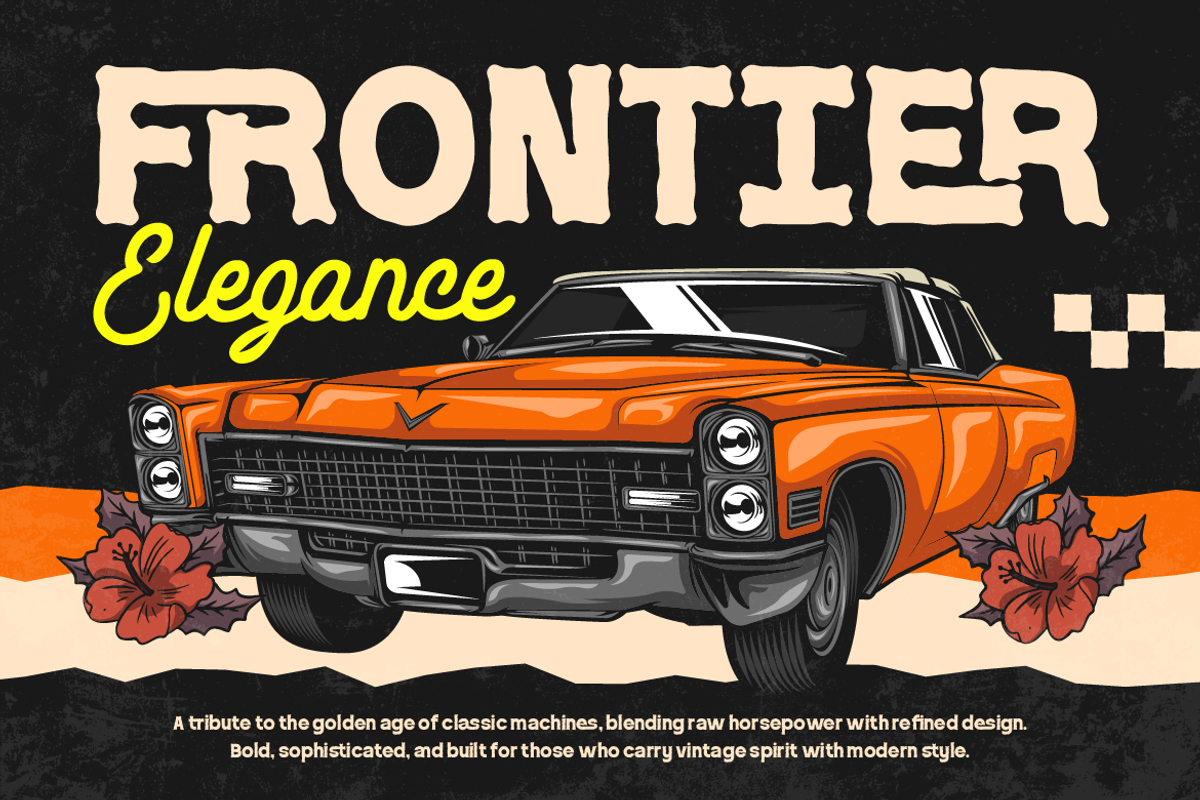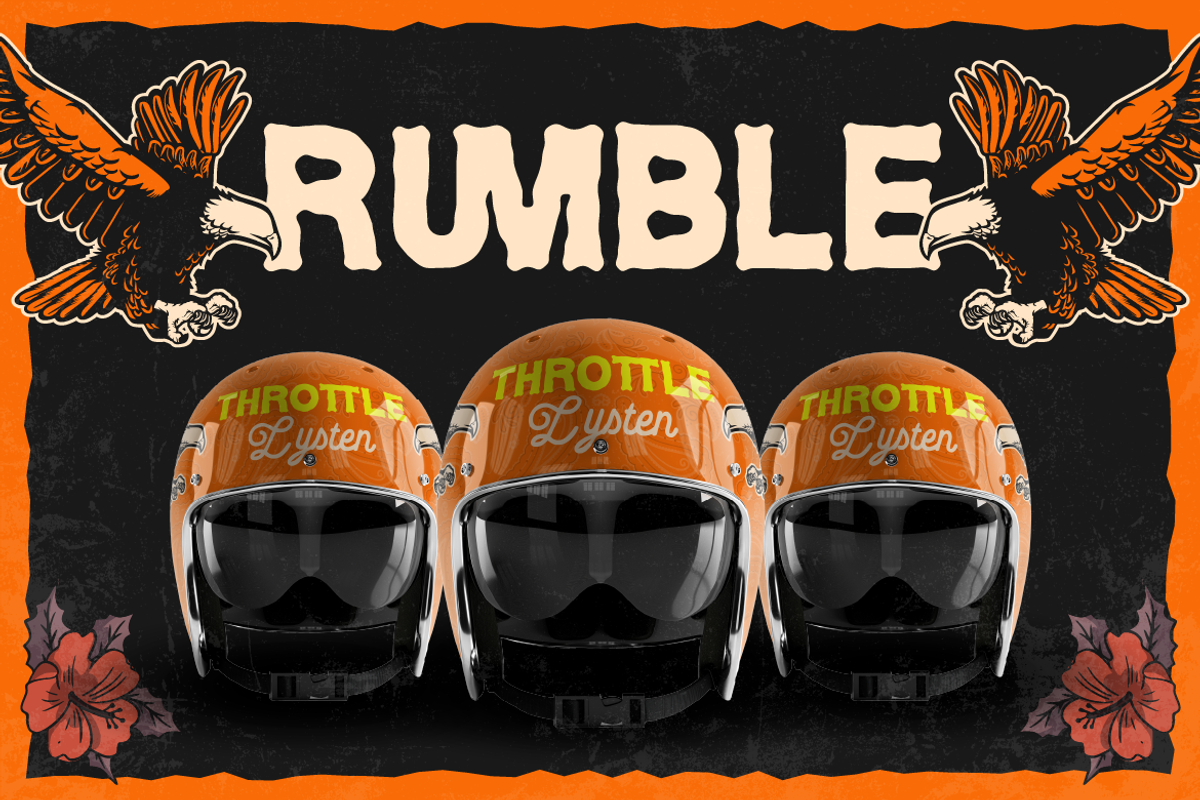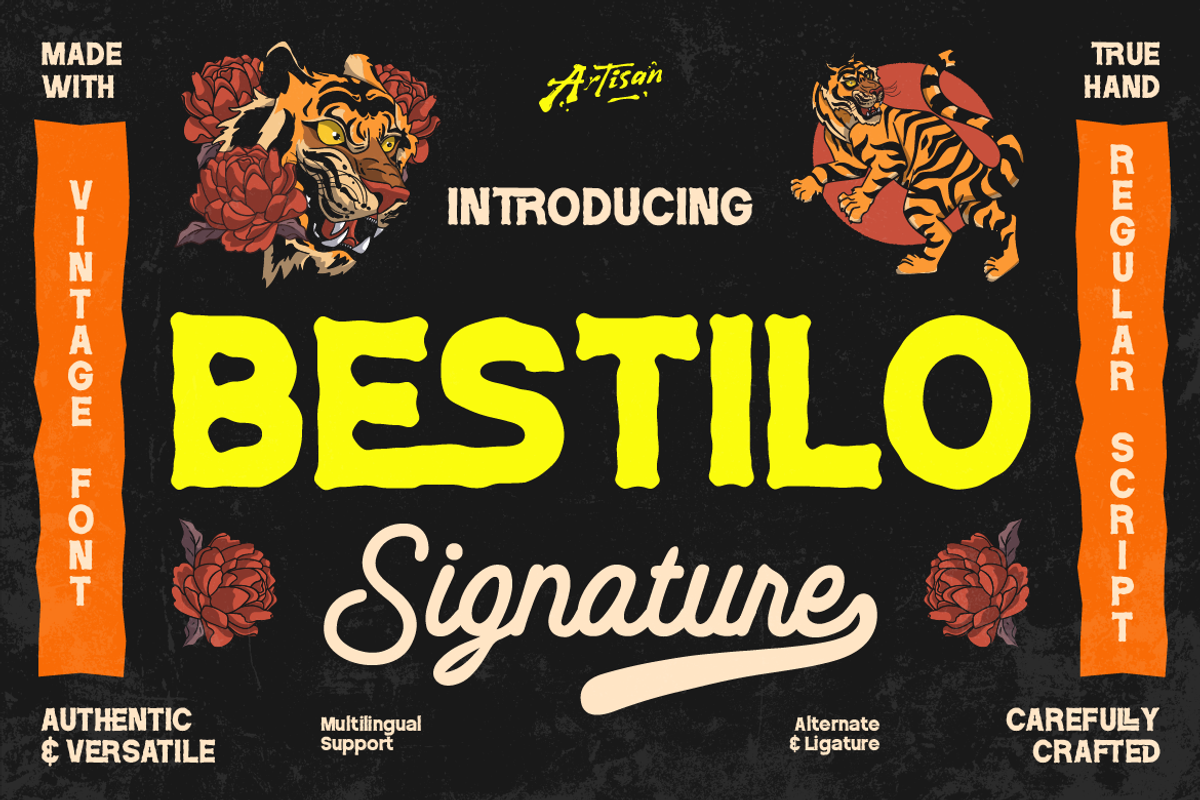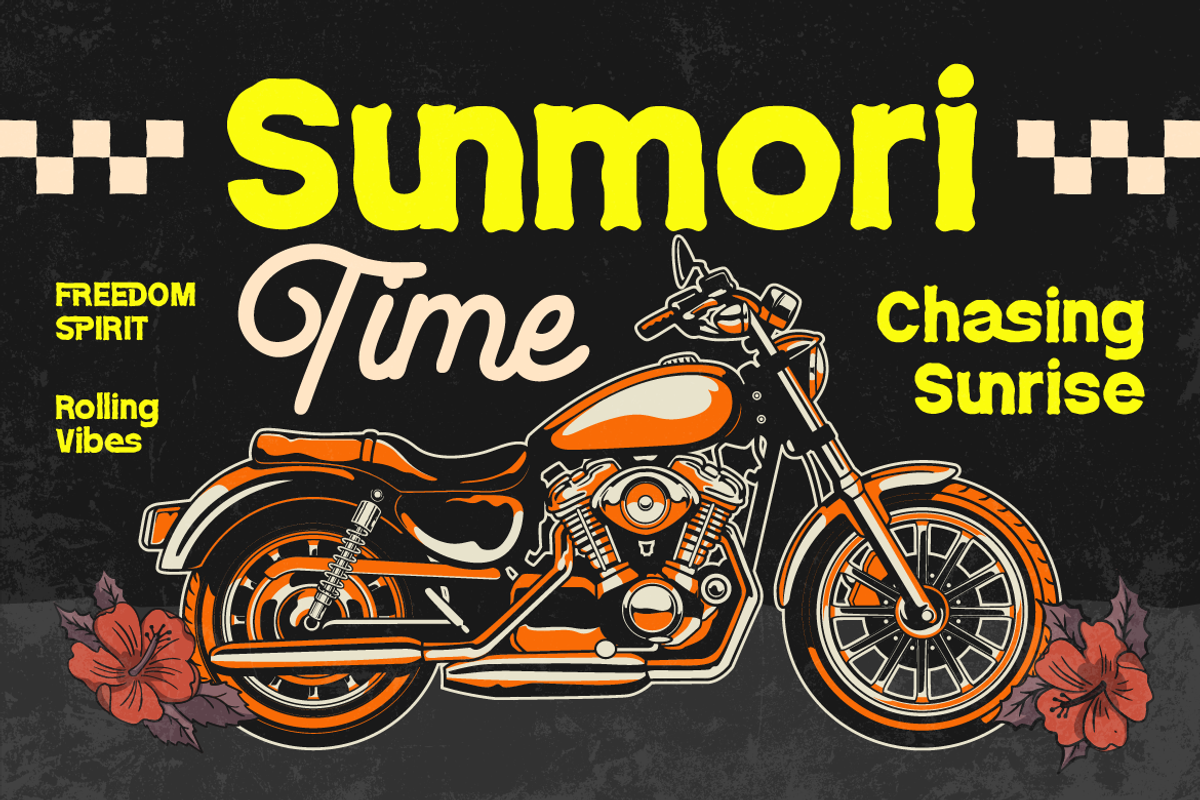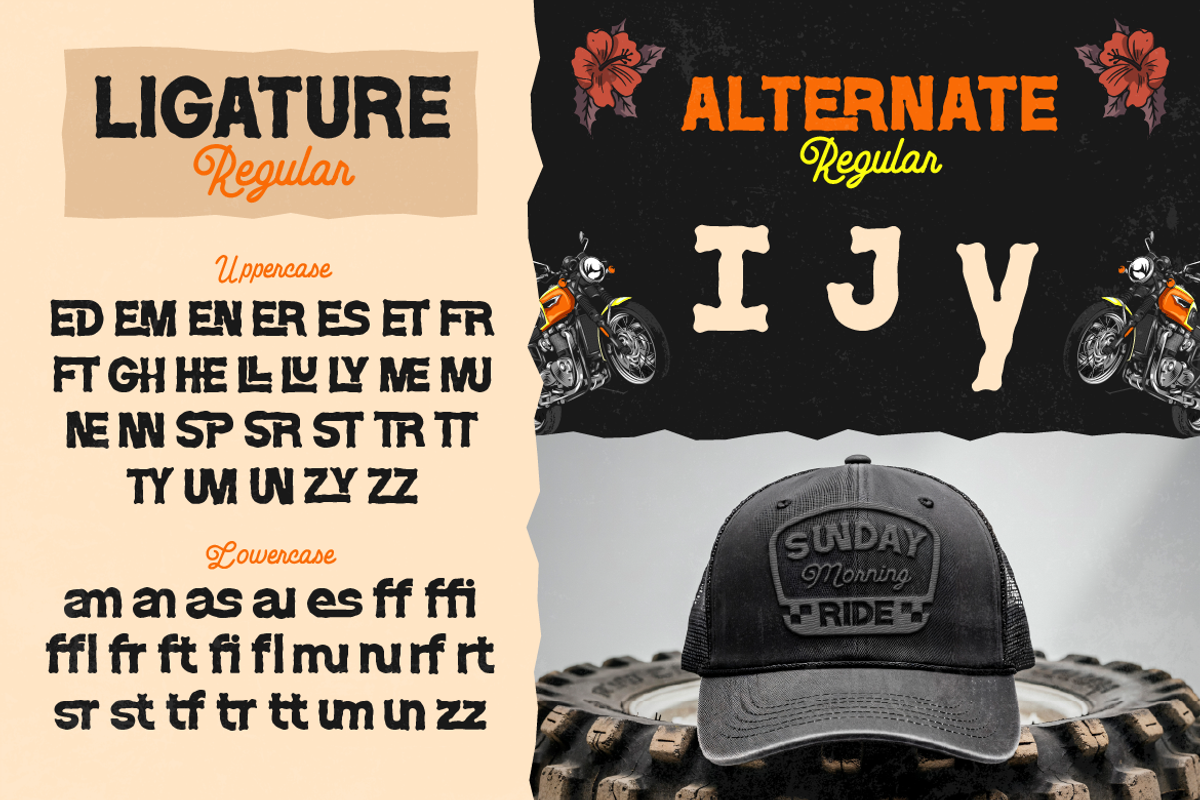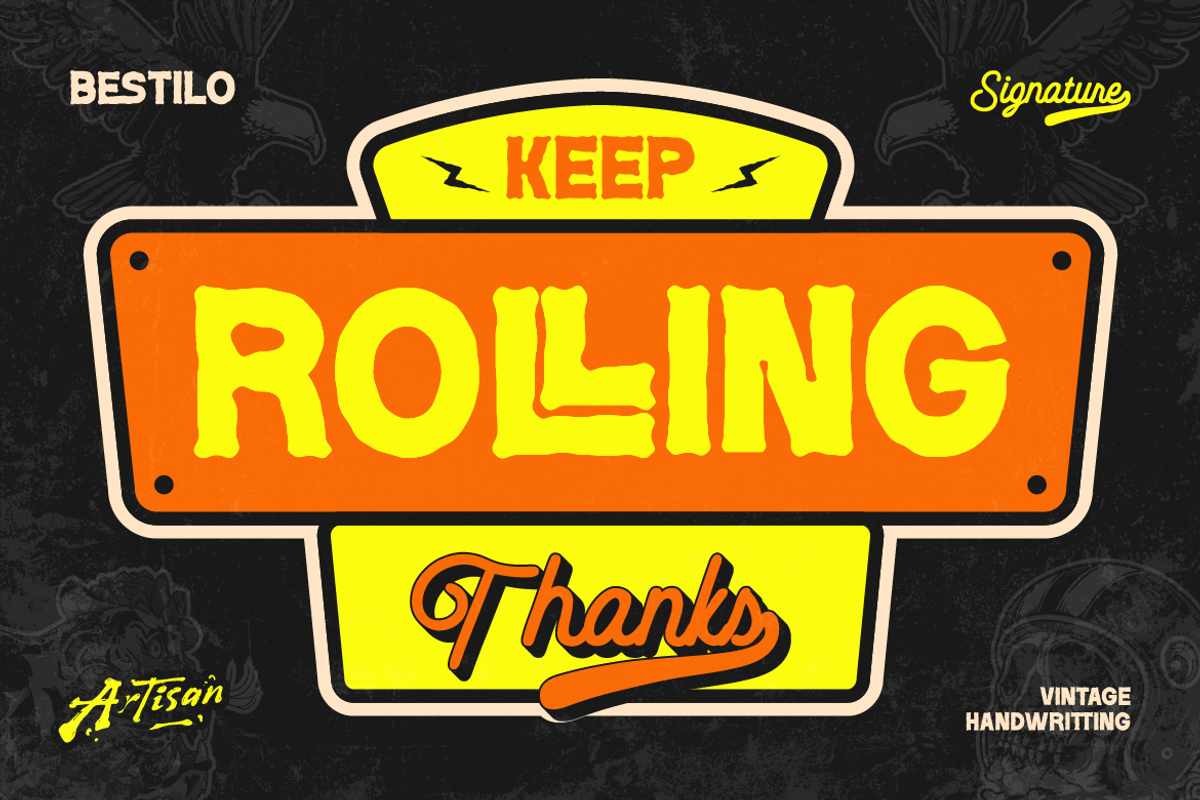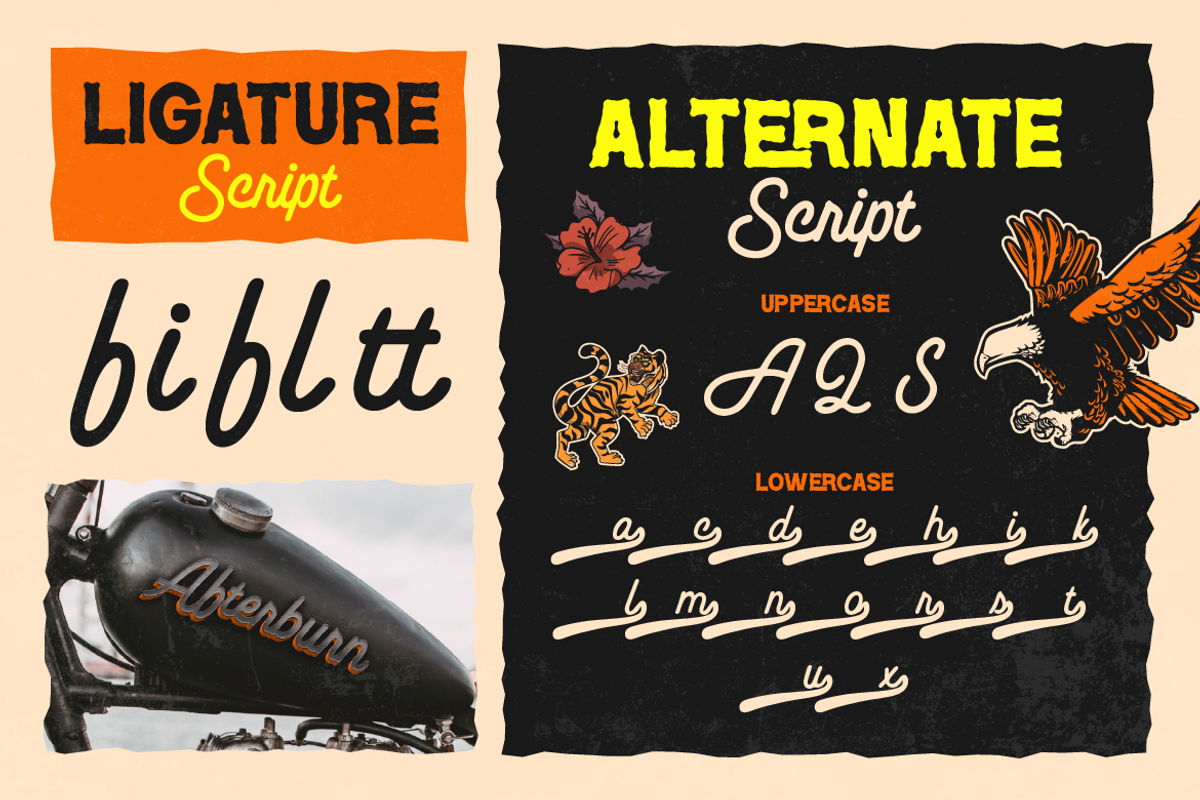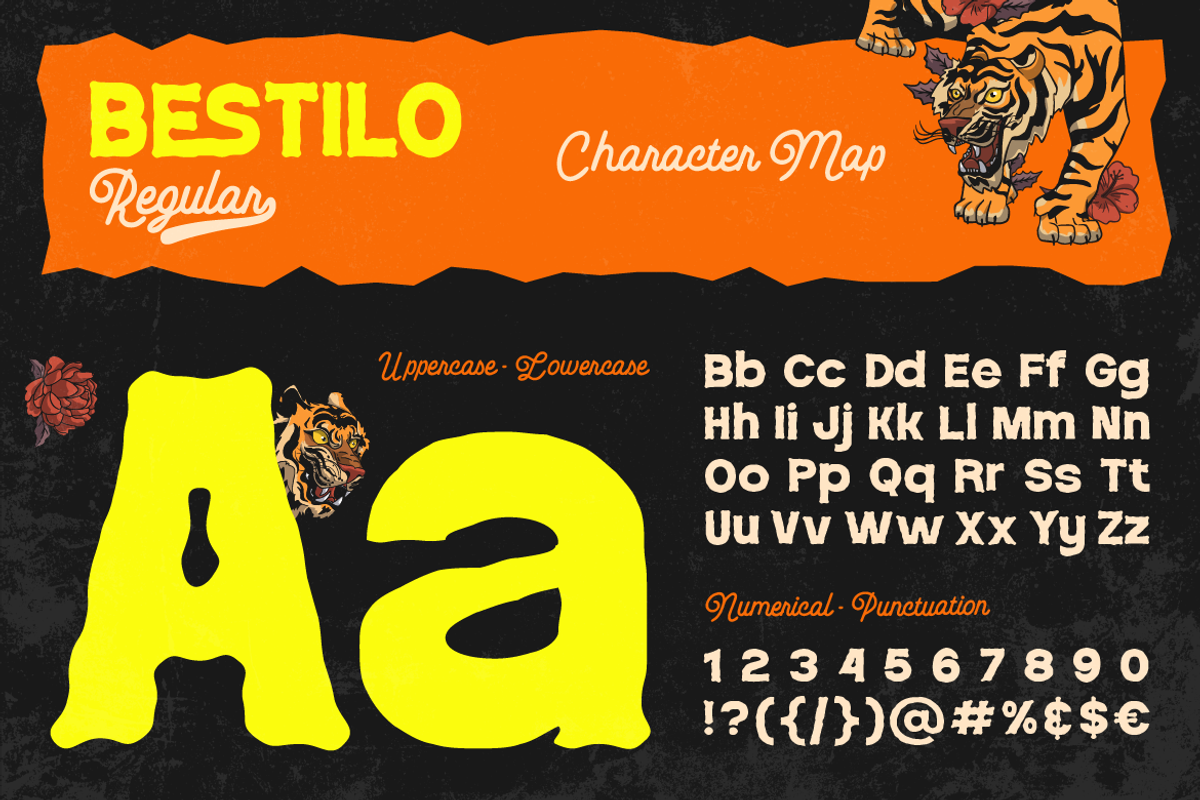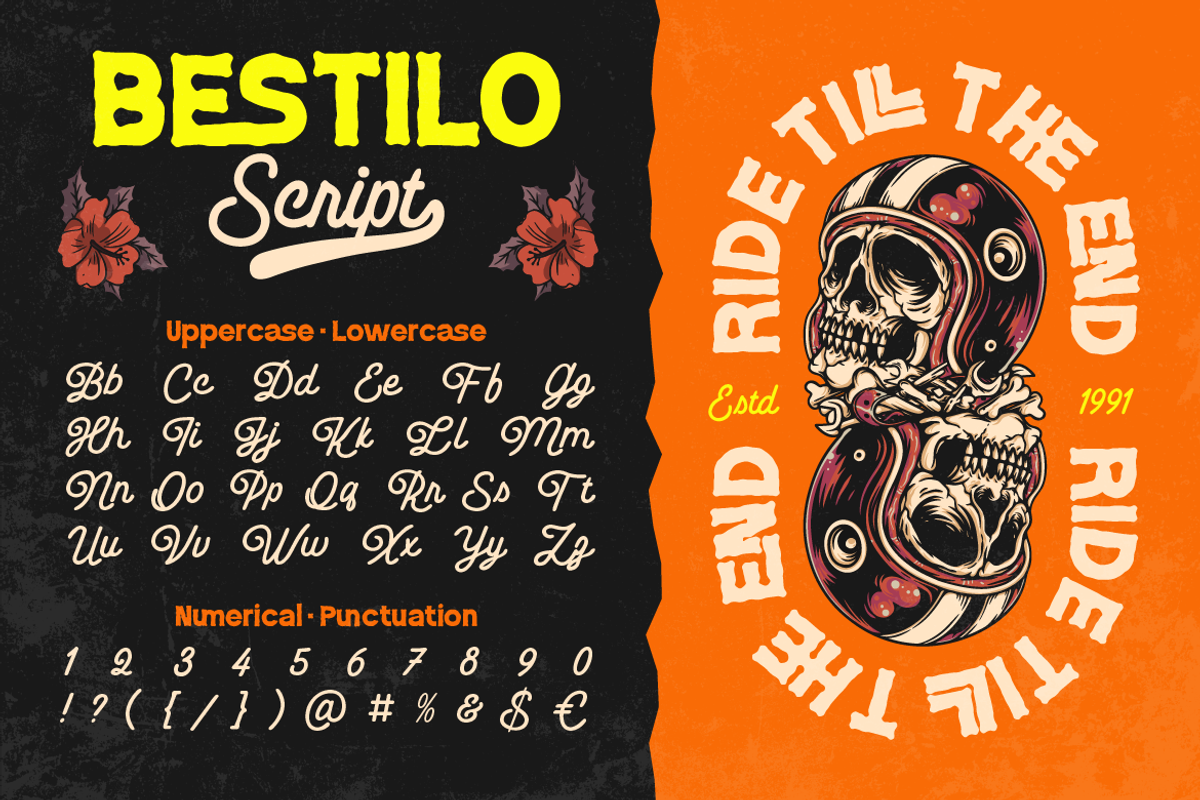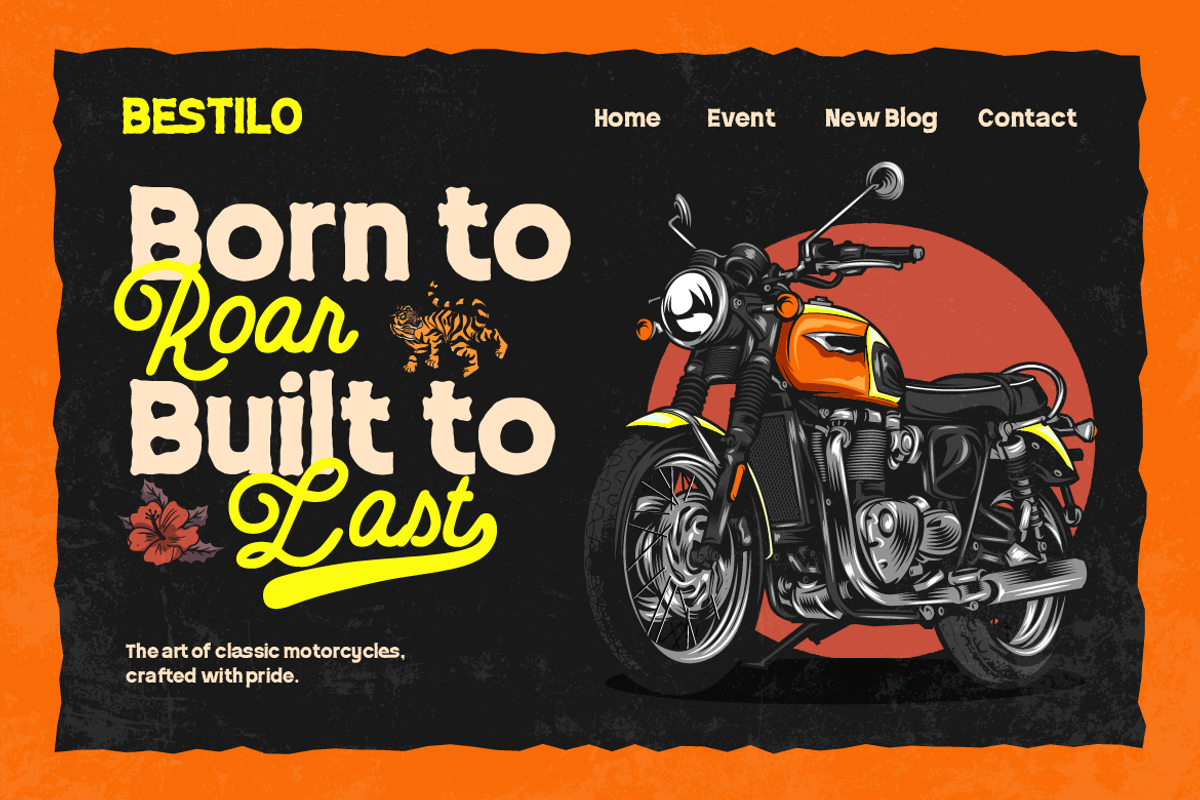
Bestilo Signature
Bestilo Signature is a cool duo-style font that mixes bold vintage energy with smooth hand-written charm. The regular style gives you that rough, authentic, handcrafted look—perfect for headlines, posters, merch, and anything that needs attitude. The script style brings a clean, flowing signature vibe that feels stylish, friendly, and super versatile. When you pair both styles together, you get a powerful combo that looks bold and classy at the same time. Whether you're working on motorcycle themes, retro designs, apparel graphics, branding, or social media visuals, Bestilo Signature delivers that strong aesthetic.